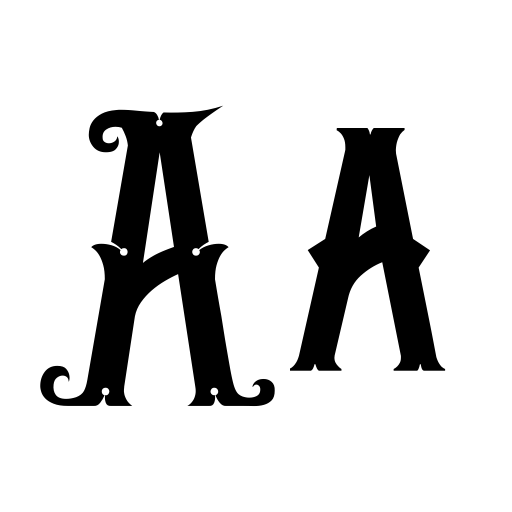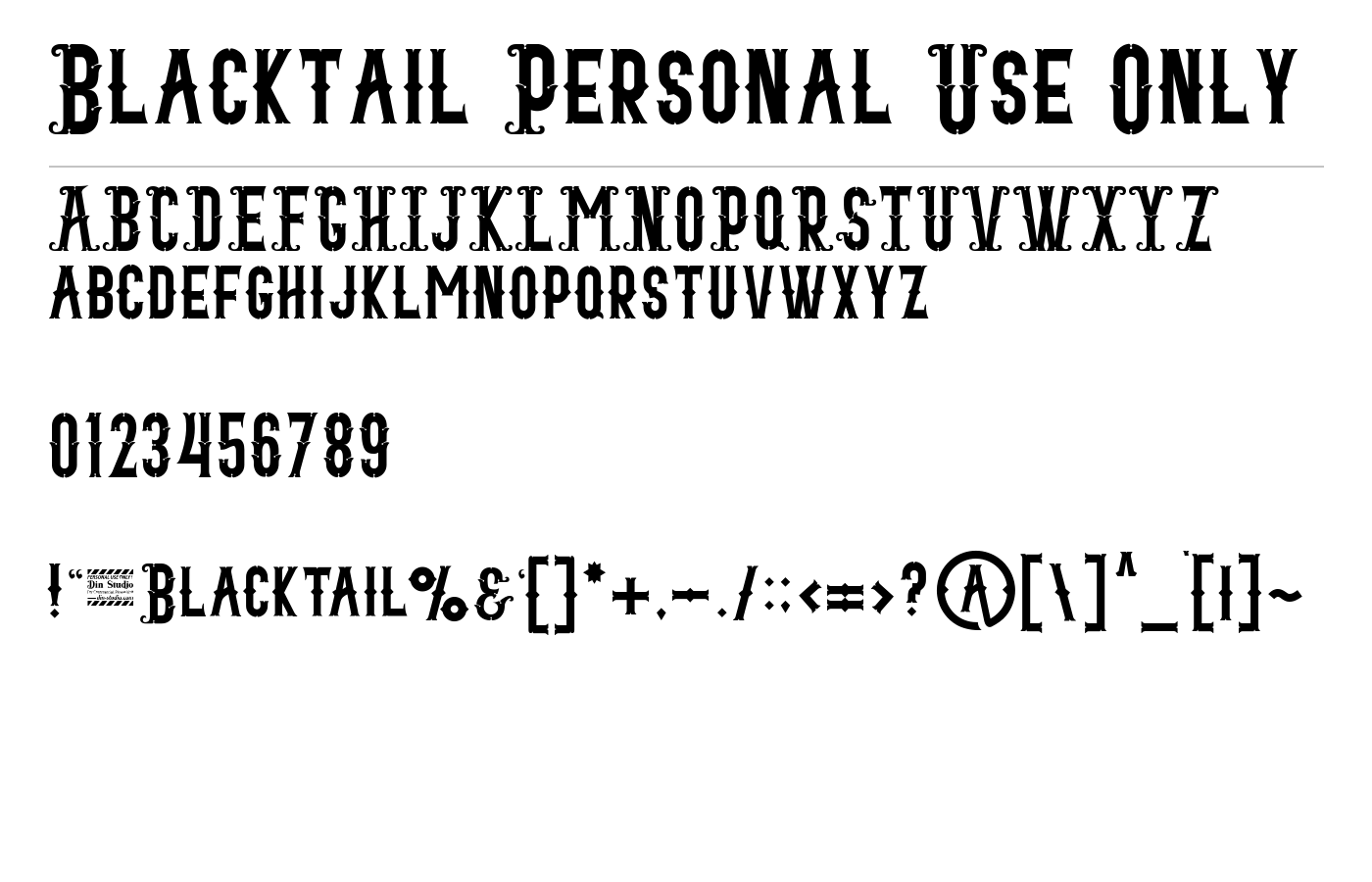
Blacktail Personal Use Only is a bold, condensed serif font with a vintage Western flair, characterized by high contrast strokes and distinctive bracketed serifs ending in ornamental curls. Its tall, narrow letterforms and decorative details evoke an old-fashioned, rugged personality that works well for branding, posters, and headlines seeking to capture a nostalgic or adventurous spirit. This font is ideal for designs that want to stand out with a strong, historic style reminiscent of classic signage and vintage typography.
Blacktail Personal Use Only Font
About Blacktail Personal Use Only Font
| Font family | Blacktail Personal Use Only Font |